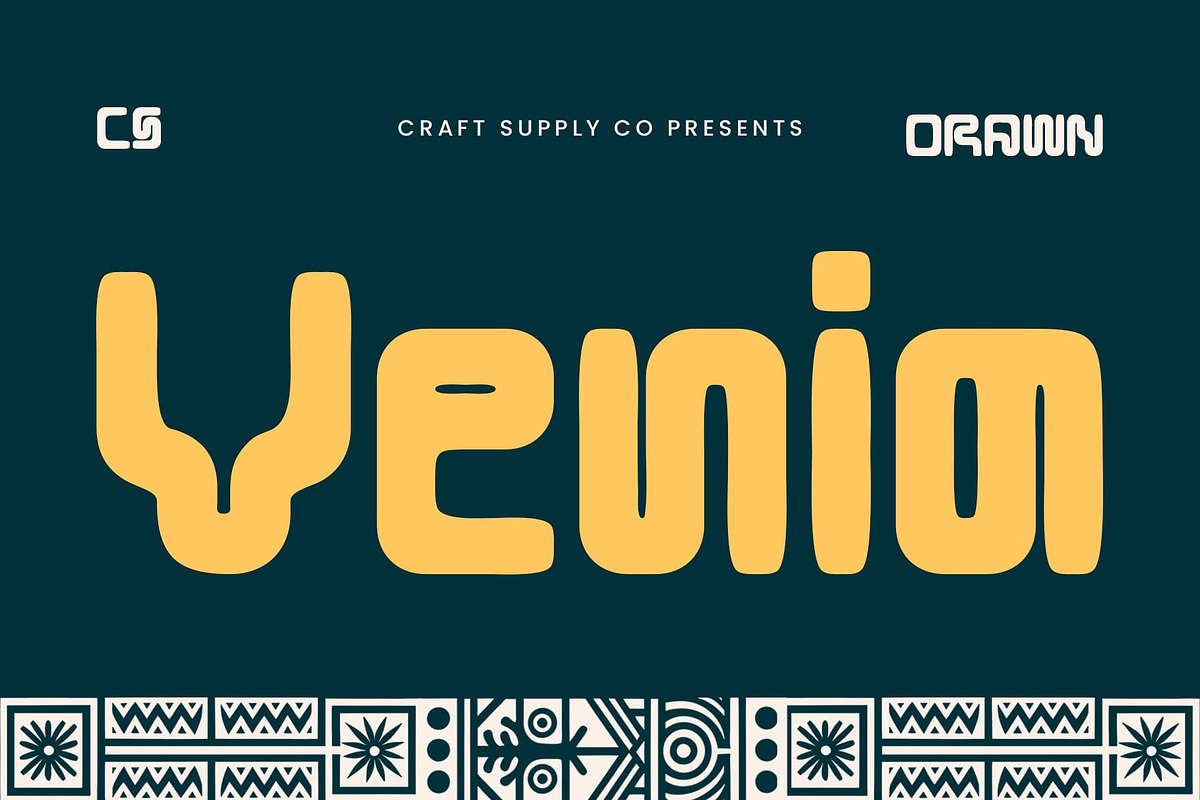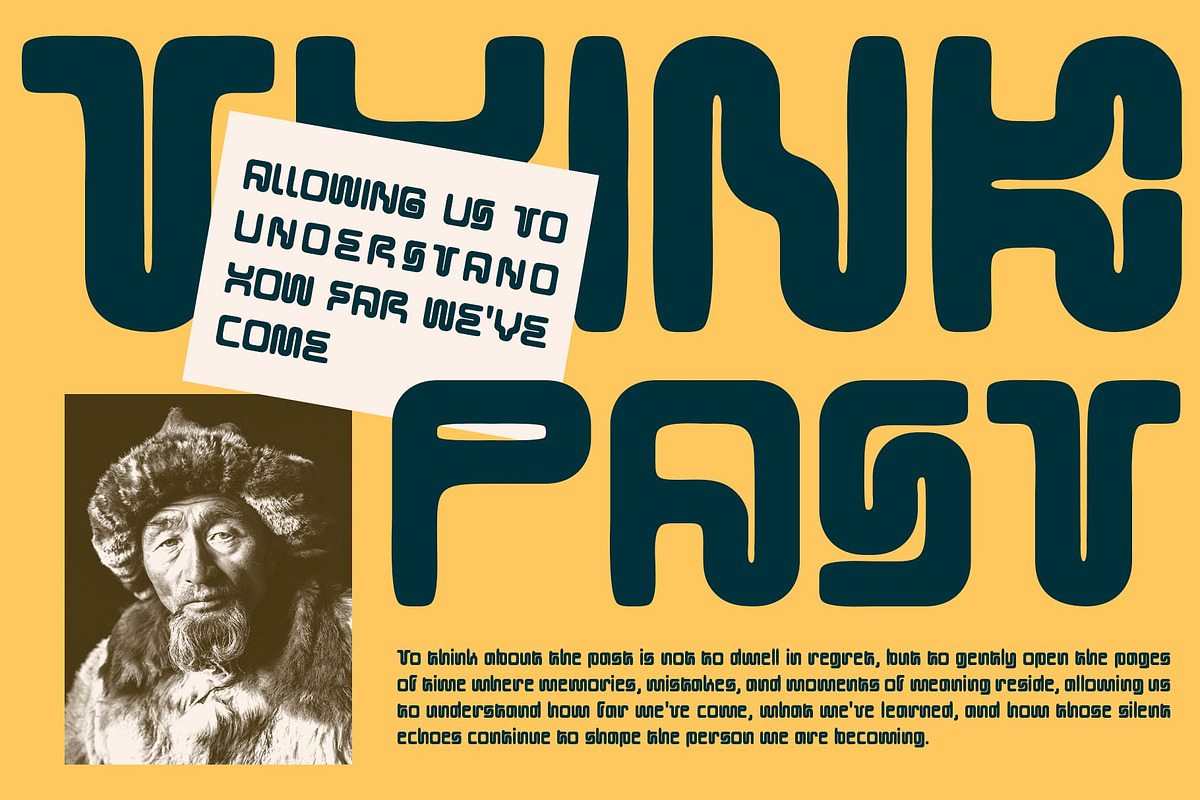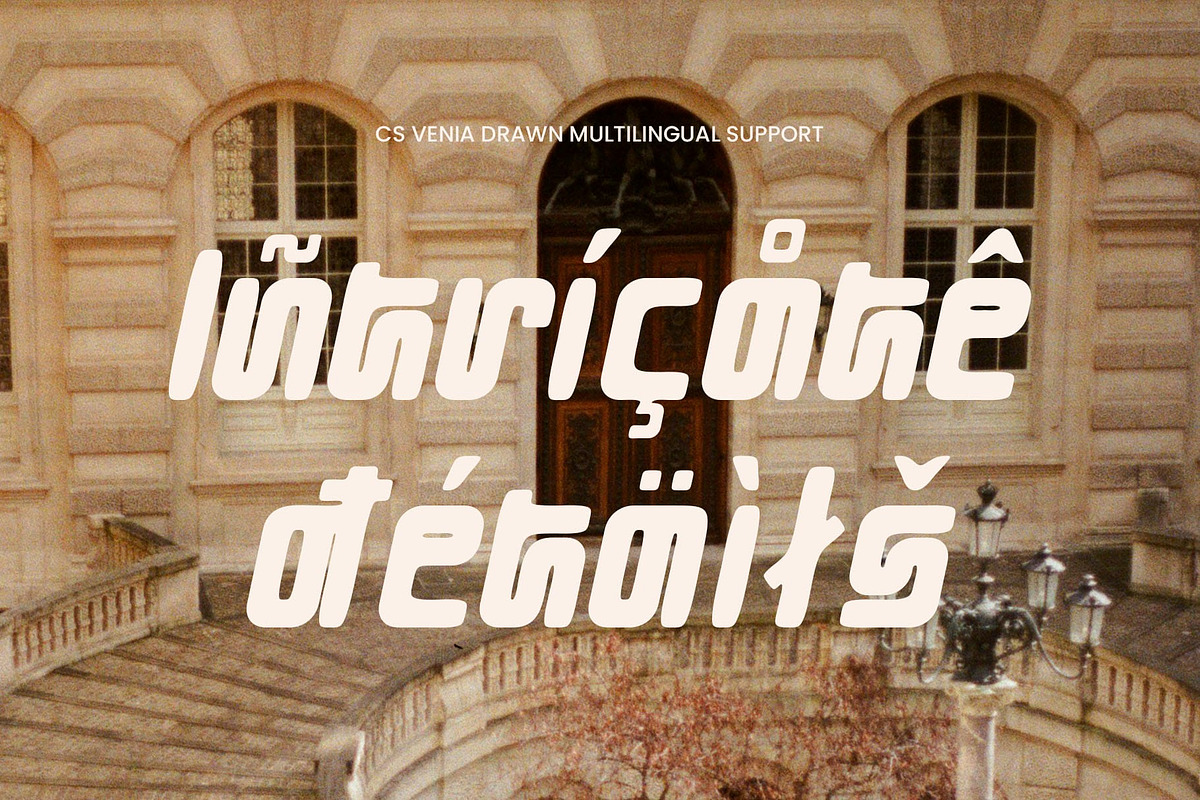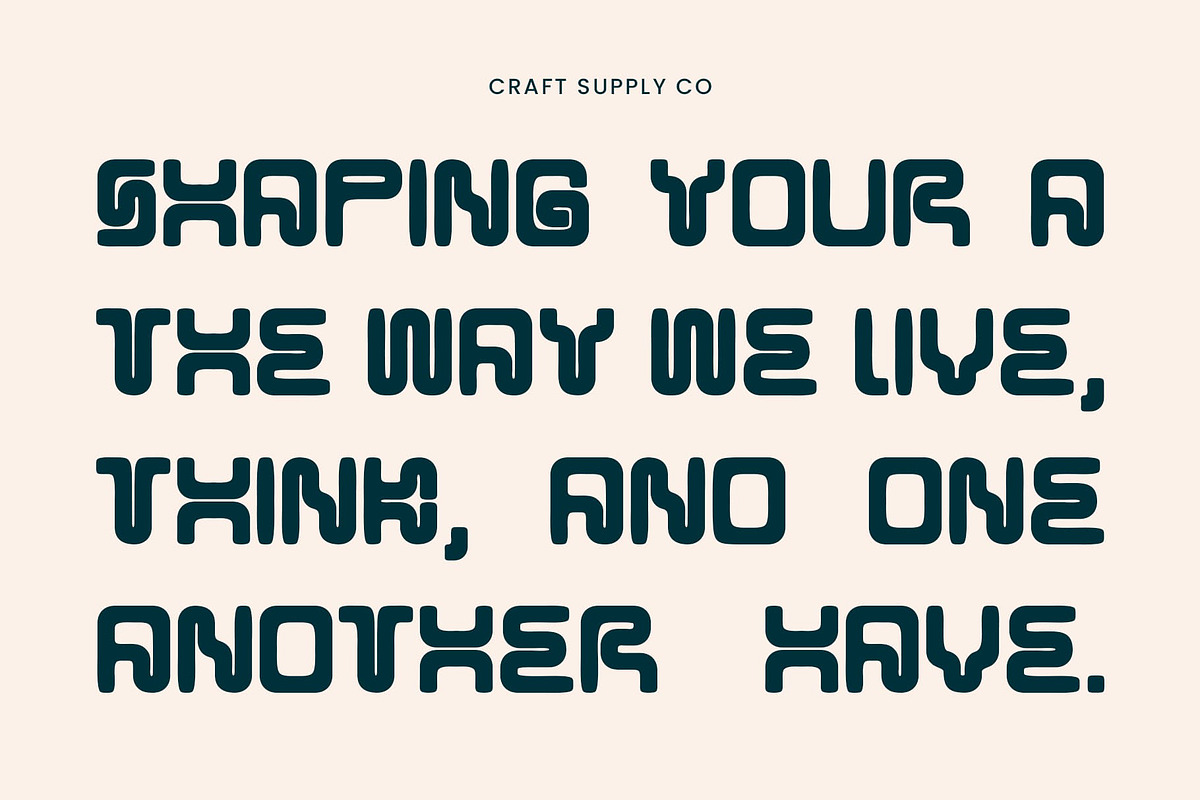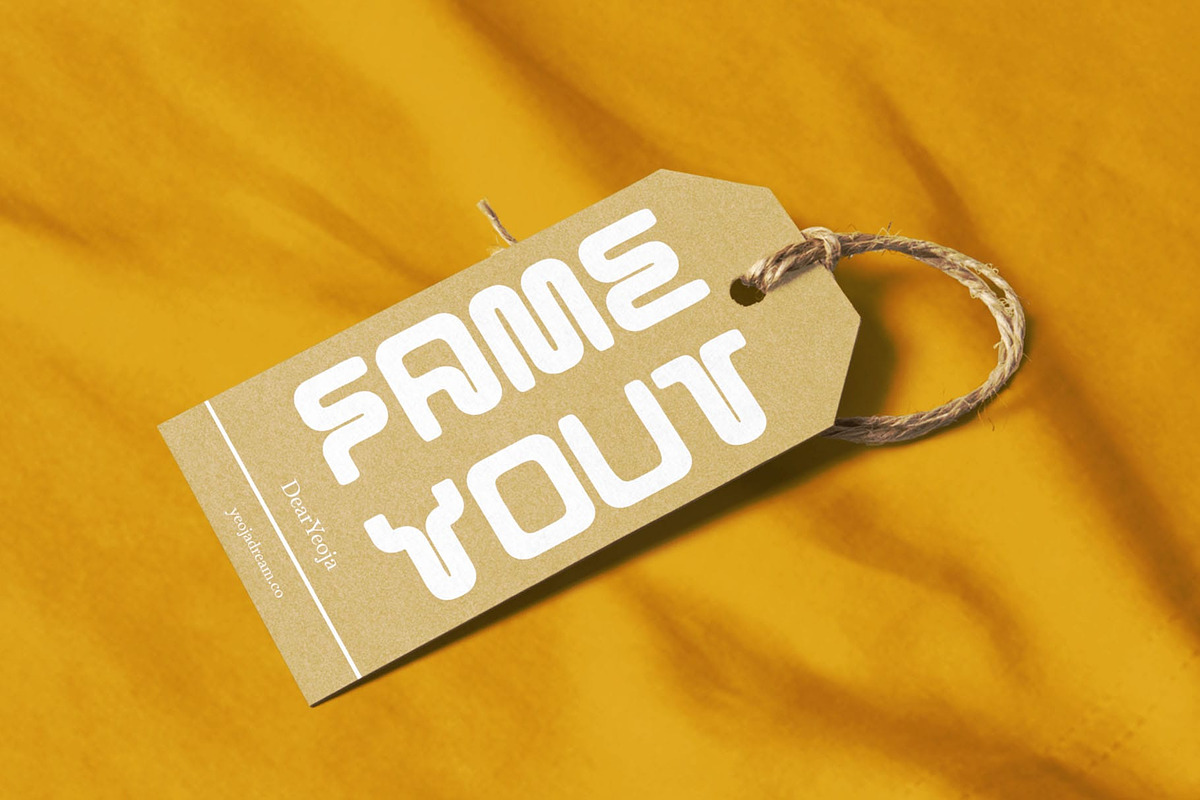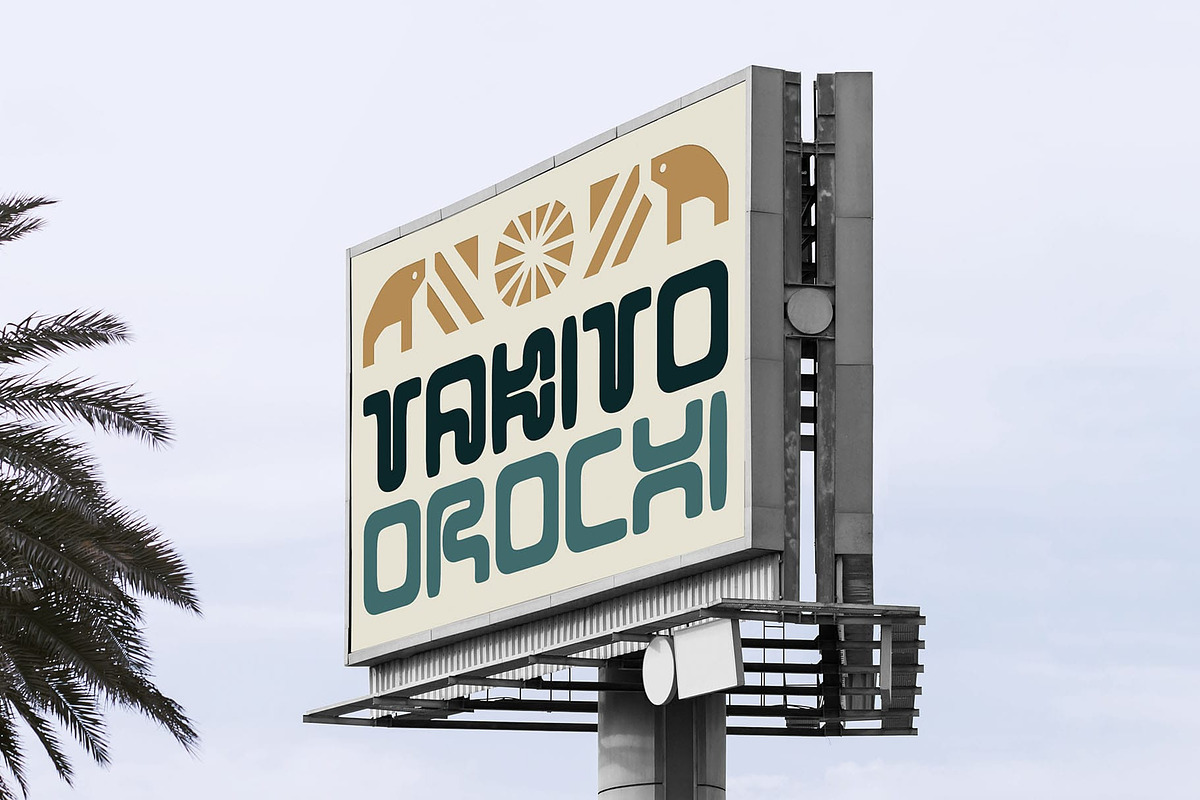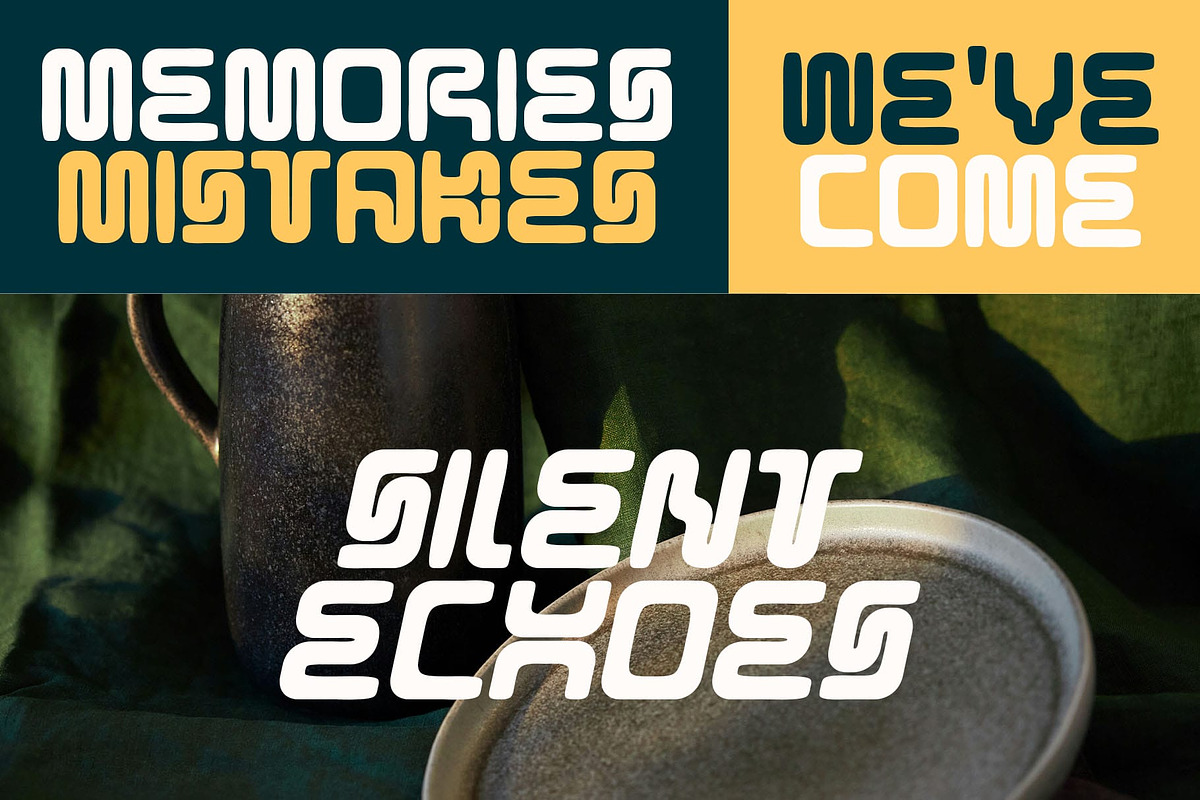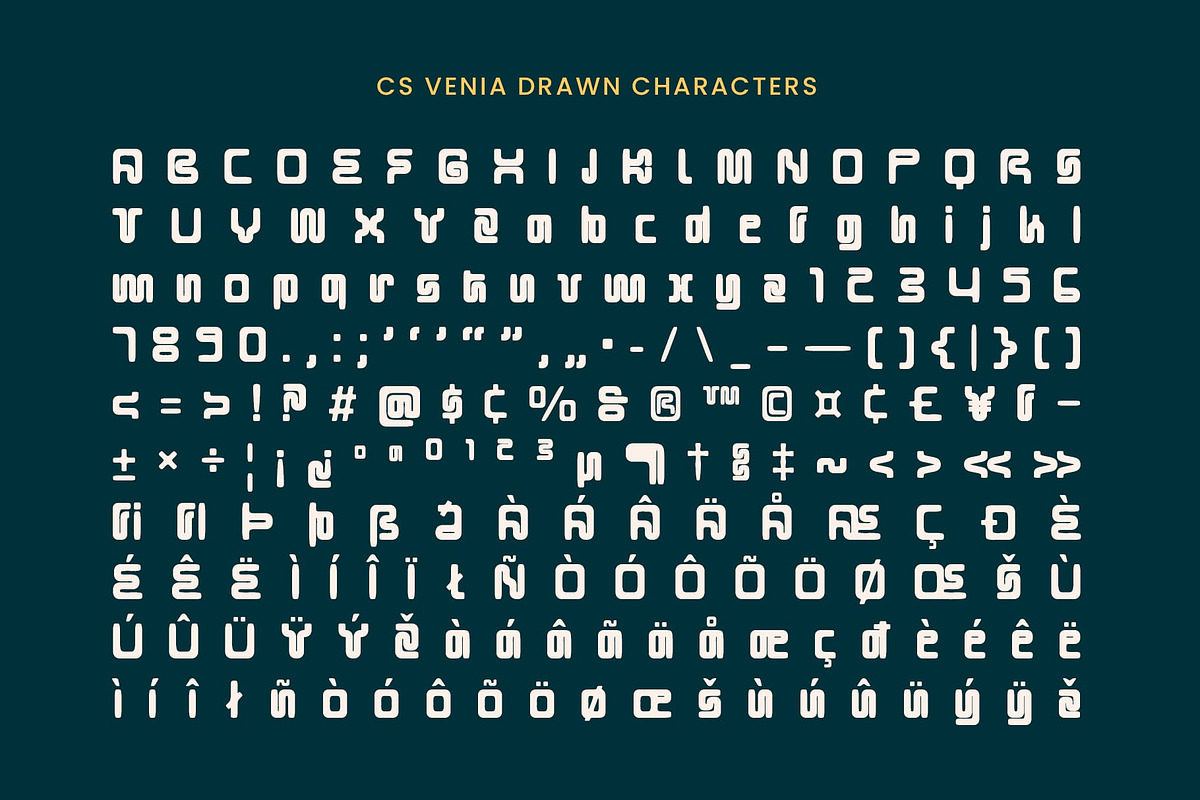
CS Venia Drawn
CS Venia Drawn – A Retro-Modern Display Font with Artistic Charm
Display Sans-Serif with Decorative Retro Appeal CS Venia Drawn is a display sans-serif font that effortlessly blends decorative elements with a unique, retro-inspired design. Its letterforms combine timeless classic details with modern sensibilities, creating a nostalgic feel that feels both vintage and fresh.
Artistic Handcrafted Drawn Effect What sets this retro font apart is its hand-drawn effect, which imbues each letter with a distinct artistic quality. This creative touch enhances the font’s visual appeal, giving it a personalized, handcrafted look that feels dynamic and full of life. The drawn elements offer a sense of authenticity and individuality.
Perfect for Nostalgic and Creative Designs Whether you’re designing posters, logos, or branding projects, CS Venia Drawn’s unique combination of retro charm and modern flair adds a creative spark to any design. Its playful yet polished appearance makes it the perfect choice for designs that want to evoke a sense of nostalgia while still feeling contemporary. From vintage-inspired marketing materials to fresh modern brand identities.
Ideal for Branding and Visual Storytelling This decorative font is perfect for projects that require a bold and creative edge. With its decorative style, retro vibe, and hand-drawn flair, it’s well-suited for creative branding, event posters, product packaging, and any design project aiming to make a statement with character and artistic elegance.